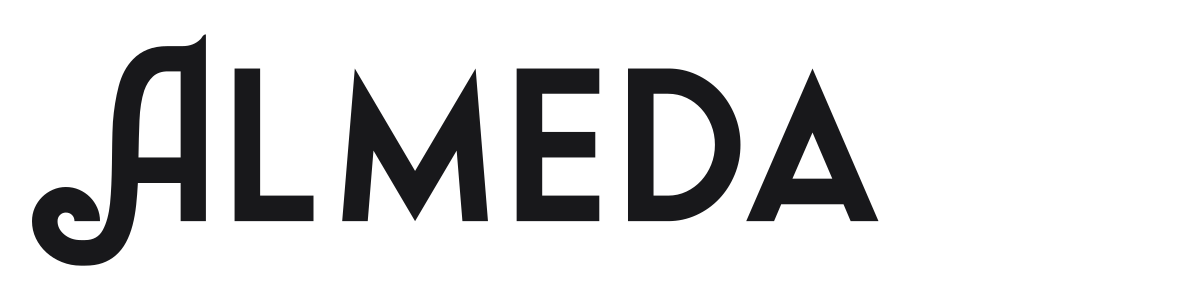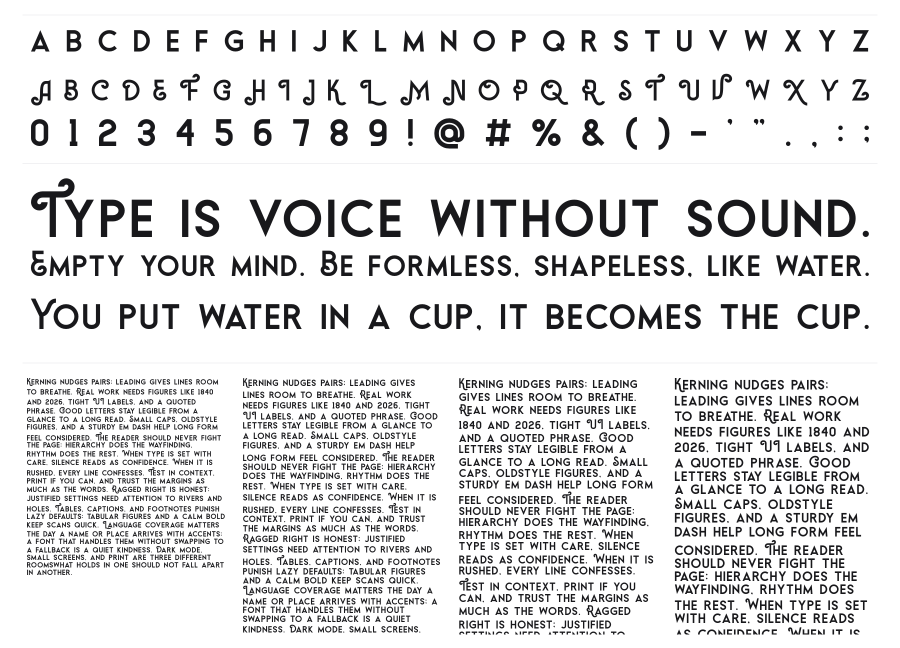
Almeda
Almeda is a geometric sans-serif with clean, even strokes and comfortable wide-set proportions that sit somewhere between rational modernism and vintage warmth. The characters have an unhurried confidence that works well in branding and editorial contexts. Its balanced weight and open spacing make it readable at headline sizes without ever feeling cold.